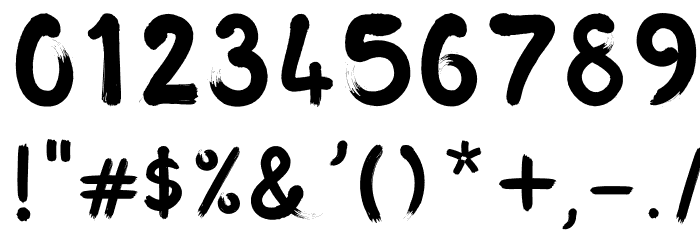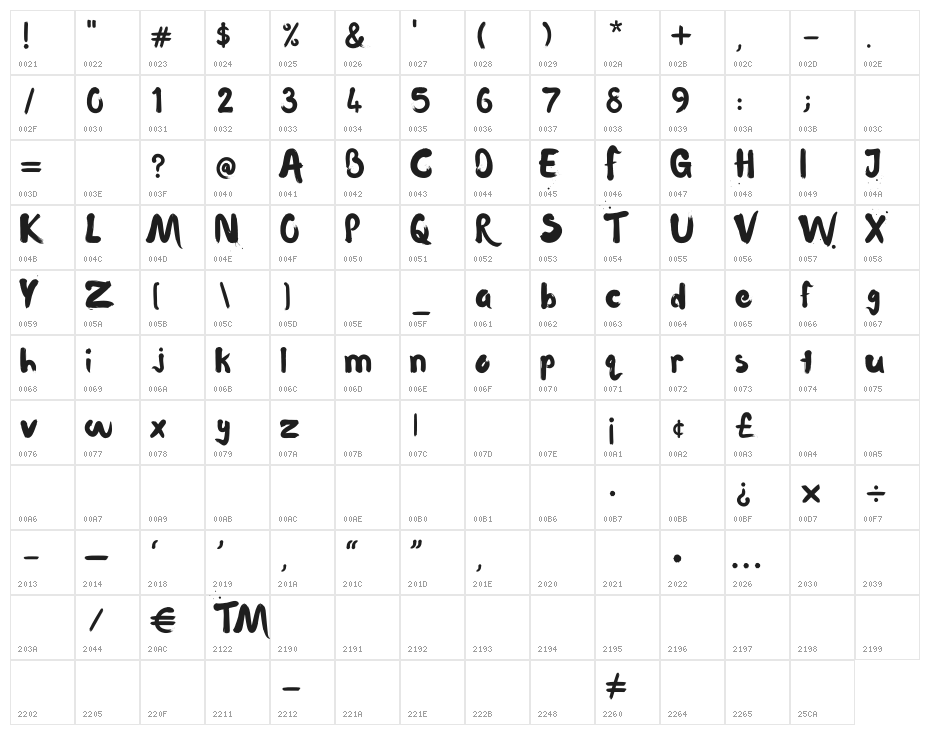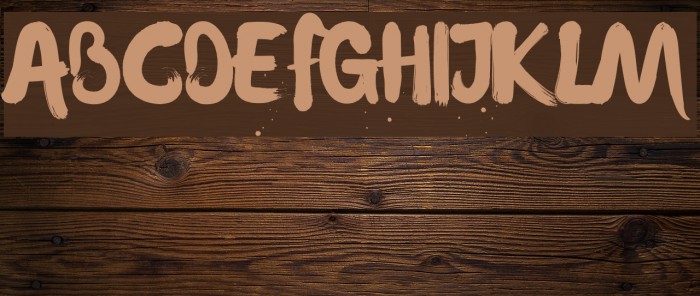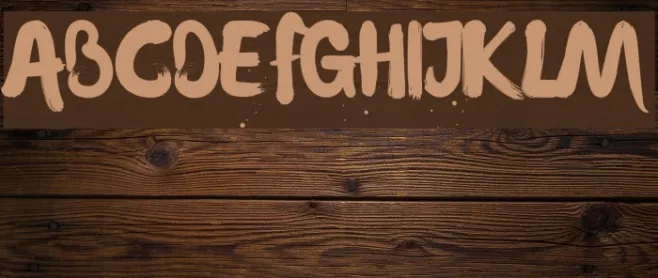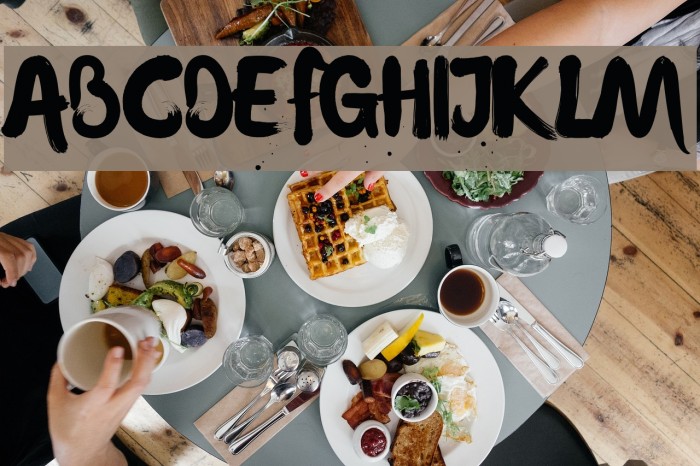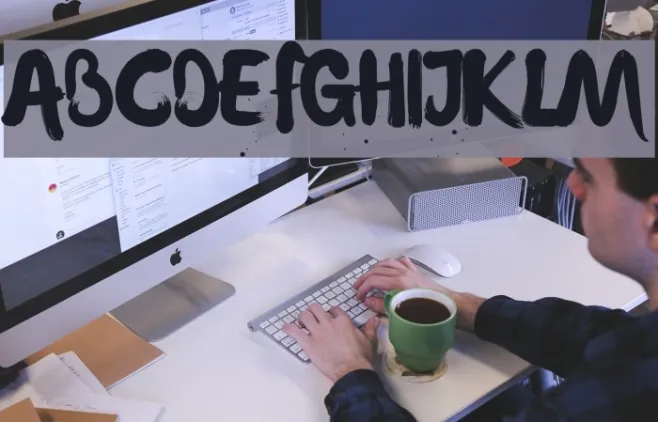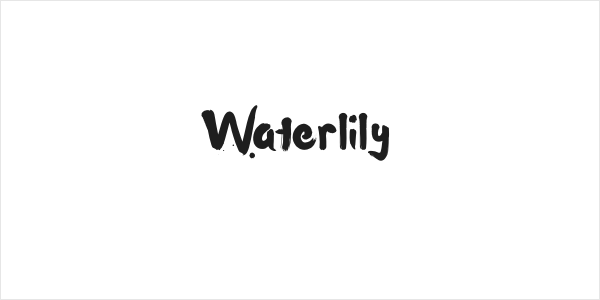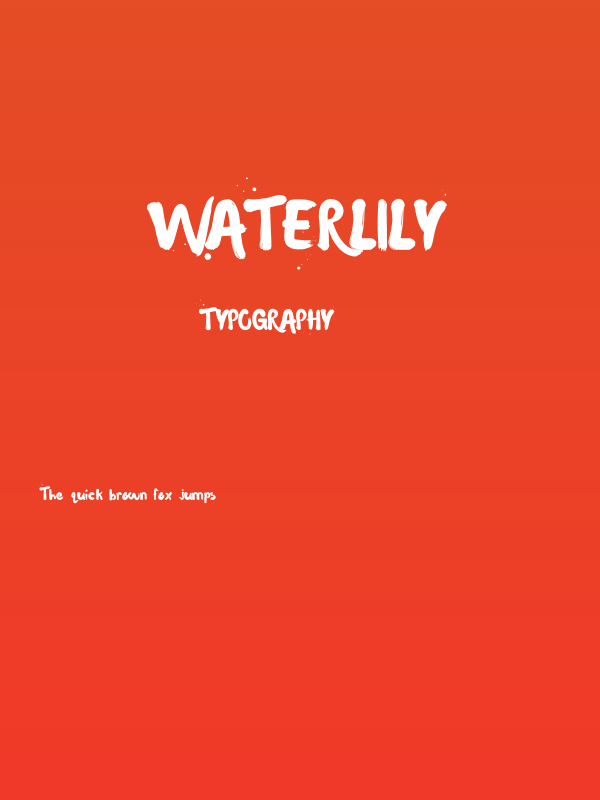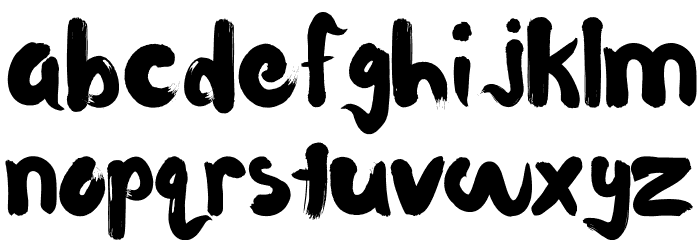
Waterlily Font
Waterlily Description
This font features a bold, expressive brush style that exudes a sense of artistic flair and creativity. The strokes are thick and uneven, mimicking the natural flow of hand-painted letters. Each character has a unique, organic feel, with varying stroke widths that add a dynamic and lively appearance. The uppercase letters are bold and commanding, while the lowercase letters maintain a playful and approachable demeanor. Numbers and special characters are equally expressive, maintaining the font's overall artistic theme. This font is perfect for projects that require a personal touch or a creative, handmade aesthetic.
| Overall Style | Artistic, Creative, Handmade |
| Use Case | Logos, Posters, Invitations, Creative Branding |
| Proposed Projects | Ideal for art projects, creative branding, posters, invitations, and any design needing a handmade touch. |